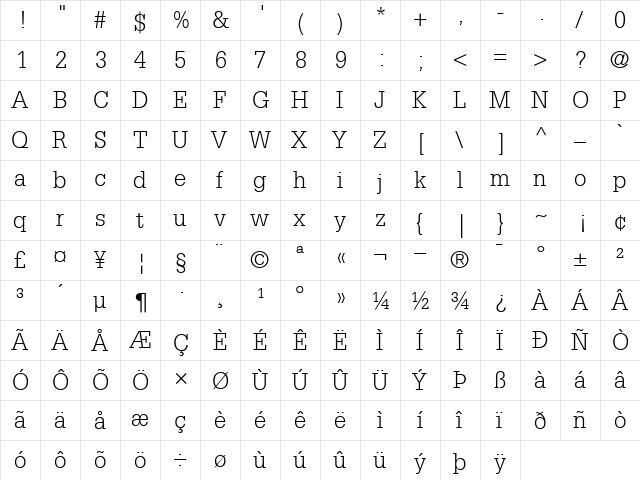
Glypha45-Light Light
Design Context for Glypha45-Light Typeface
Glypha45-Light is a composed and adaptable typeface that performs quietly and consistently across a wide range of design contexts. The delicate stroke weight brings airiness and refinement to layouts.